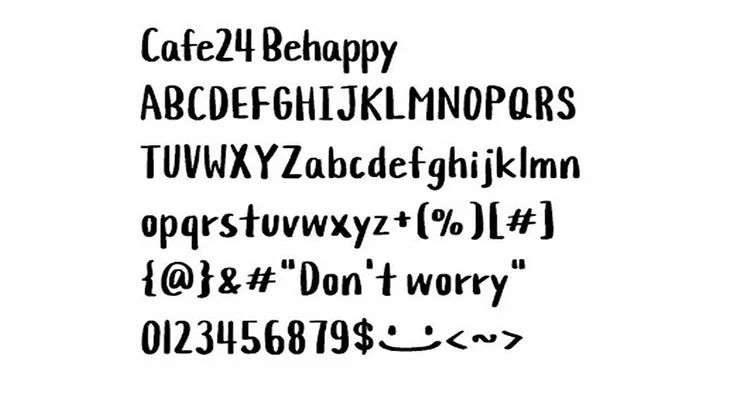
Be Happy Font is a simple and cute hand-lettered brush-style typeface. It is perfect for a range of uses, consisting of books, greeting cards, posters, picture books, and more.
The font is full of character and personality, and it is sure to add a contact of whimsy to any project. It was designed and shared by way of Cafe24.
This font is available in a single style: regular. The everyday style is perfect for everyday use, while the outlined style is super for creating a more dramatic effect.
If you are looking for a font that is elegant and versatile, then Be Happy Font is a magnificent option. It is sure to add a contact of happiness to any project.
Style:Script, Brush, Handwritten
It is perfect for use in developing purposes of websites, web page designs, Youtube channel designs, blog designs, and attractive theme design purposes. This typeface is also suitable for wedding card designs, emblems designs, banners, murals designs, blog template designs, and so on.
This modern typeface is great for video editing purposes, game designs,  t-shirt designs, comic cover designs, resume designs, company logo designs, and various advertisement purposes.
The font Cafe24 Behappy contains 107 glyphs and 37 binary stored kerning pairs and supports 34 languages.